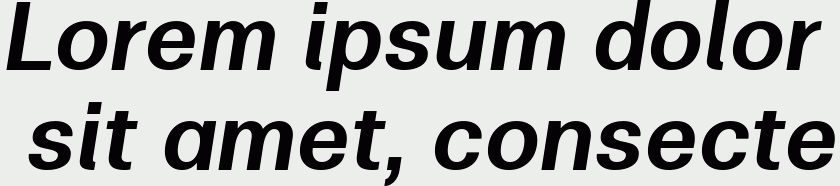
Clinica Pro
/ Clinica Pro SemiBold Italic
Clinica Pro is a modern take on Swiss grotesque, with a little bit of an added personality.
Still relatively neutral, it lets a brand stand out of the grotesque-crowded environment.